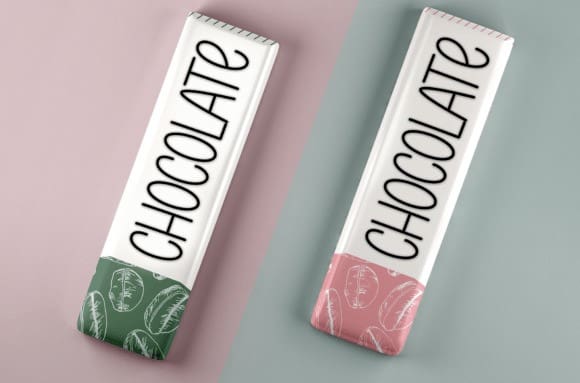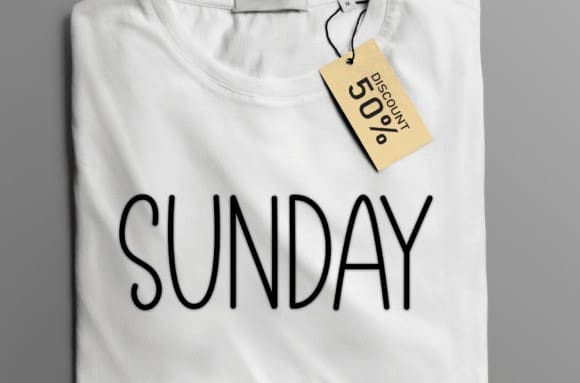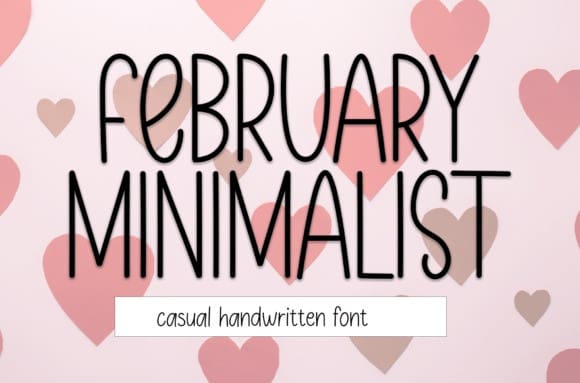
February Minimalist Font
February Minimalist Font is a sweet and friendly handwritten font. Cute and creative, this font is ideal for writing wedding invitations, cards, or any other design that might need a fun touch!